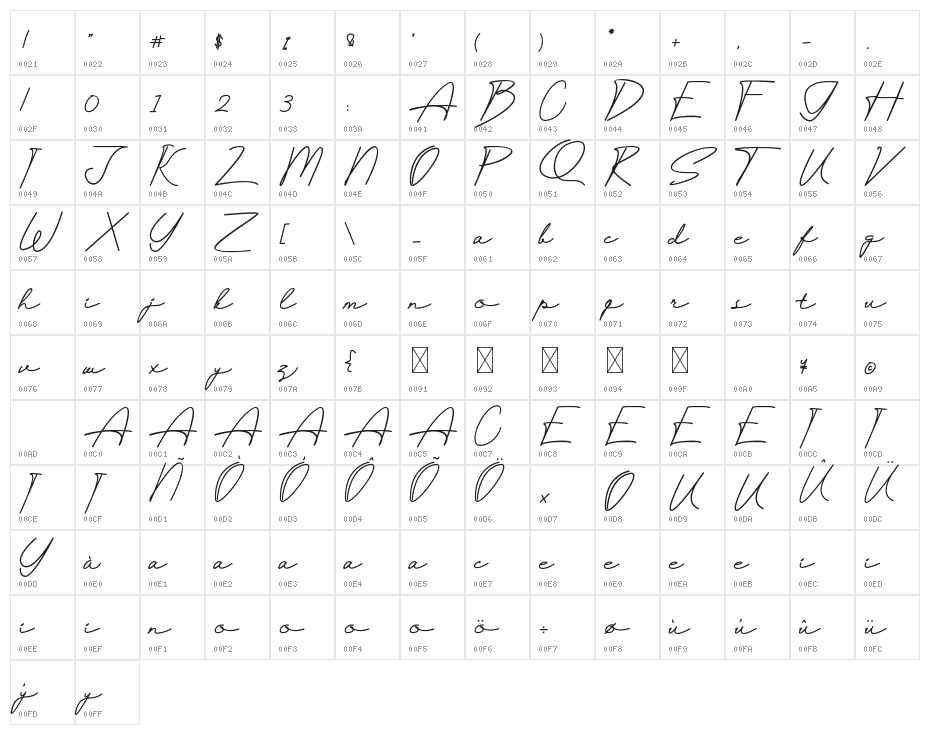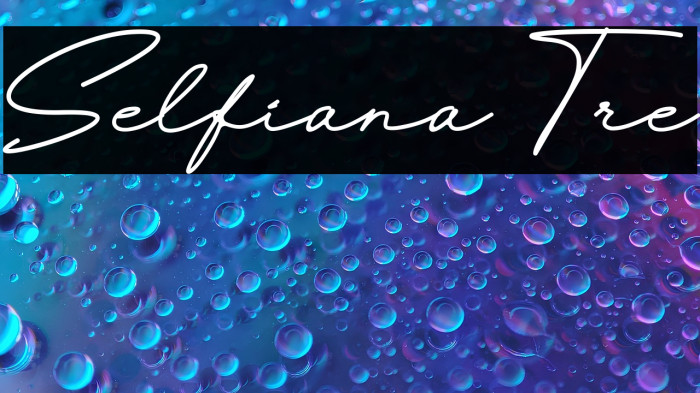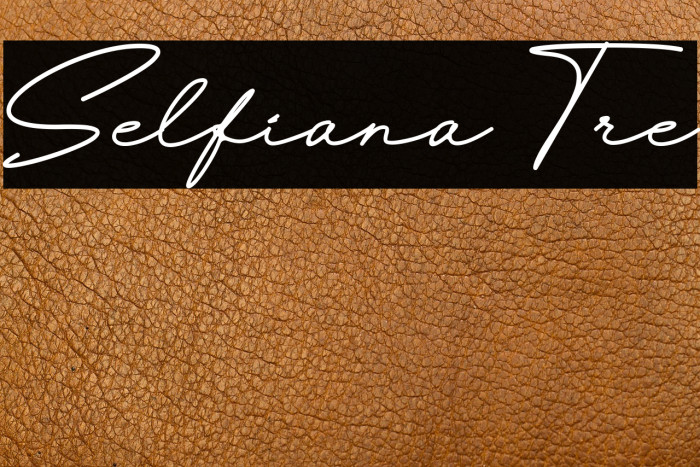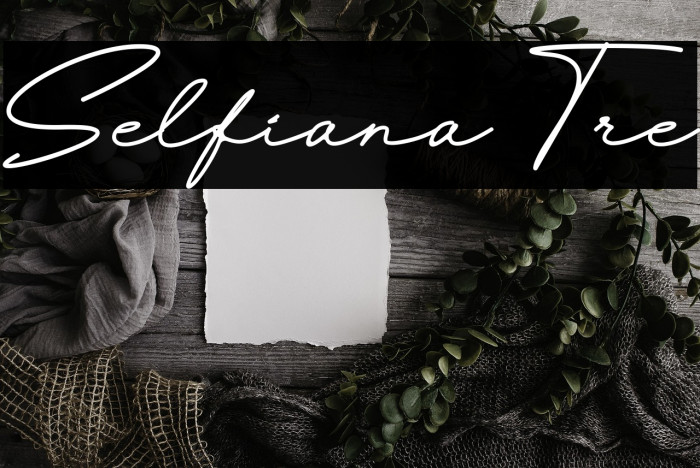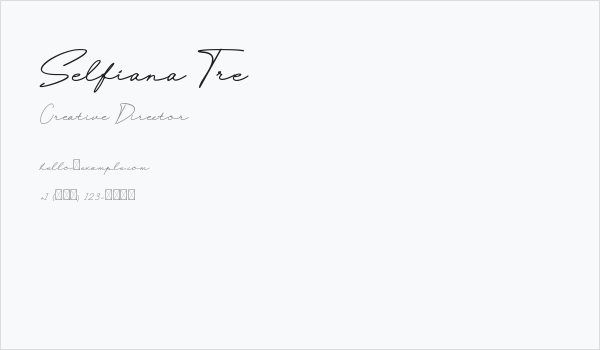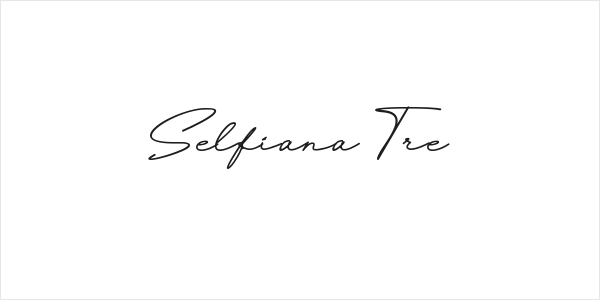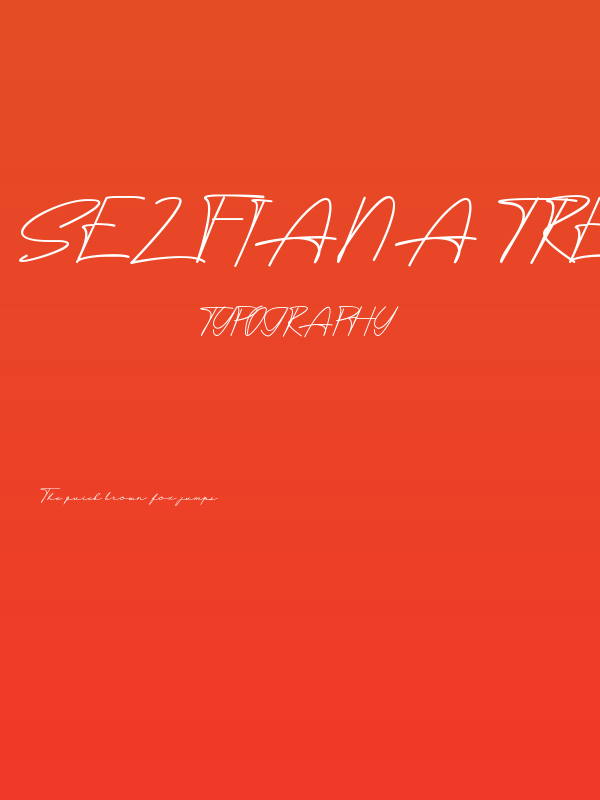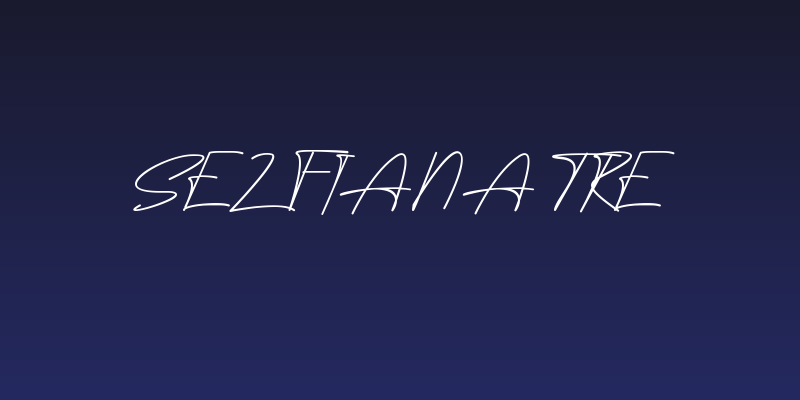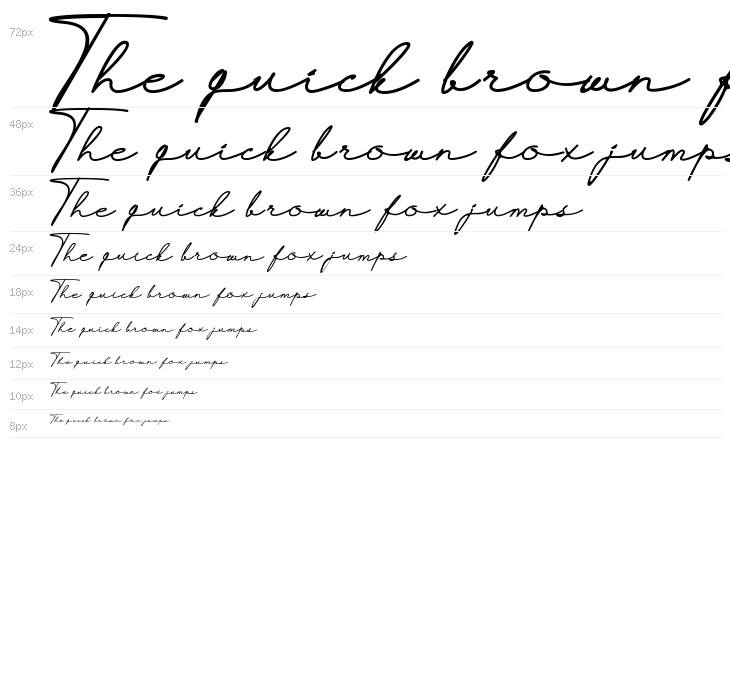
Selfiana Tre Font
Selfiana Tre Description
This font exudes a modern and elegant script style, characterized by its fluid and connected letterforms. The uppercase letters are tall and slightly slanted, giving a sense of movement and grace. The lowercase letters maintain a consistent flow, enhancing readability while retaining a sophisticated appearance. The numerals are clear and distinct, complementing the overall aesthetic. Special characters are crafted with the same attention to detail, ensuring uniformity across the font. This typeface is perfect for projects that require a touch of elegance and modernity.